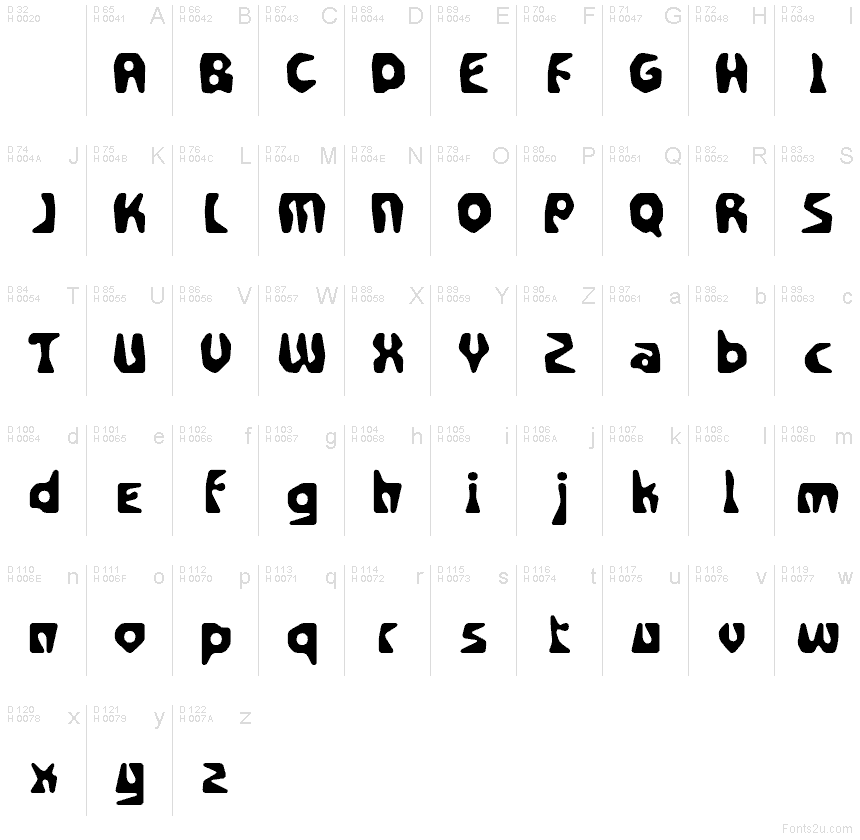
CS Bosten Regular Demo
CS Bosten font by Craft Supply Co. is a free bold cartoon display font. Built around soft, inky blobs and pebble-like shapes, it has a bouncy rhythm and plush edges that feel hand-molded rather than drawn. The counters look like scoops taken out of dough, giving each letter a juicy silhouette that holds up at big sizes and reads with cheerful impact.
This free font shines on kids’ packaging, snack or ice-cream branding, festival posters, game titles, stickers, and YouTube thumbnails. CS Bosten’s chunky forms create instant warmth and personality without getting messy, so short headlines pop and stay legible. Pair with a crisp, light-weight sans for captions, and let the display sit large with slightly loose tracking for extra squish.